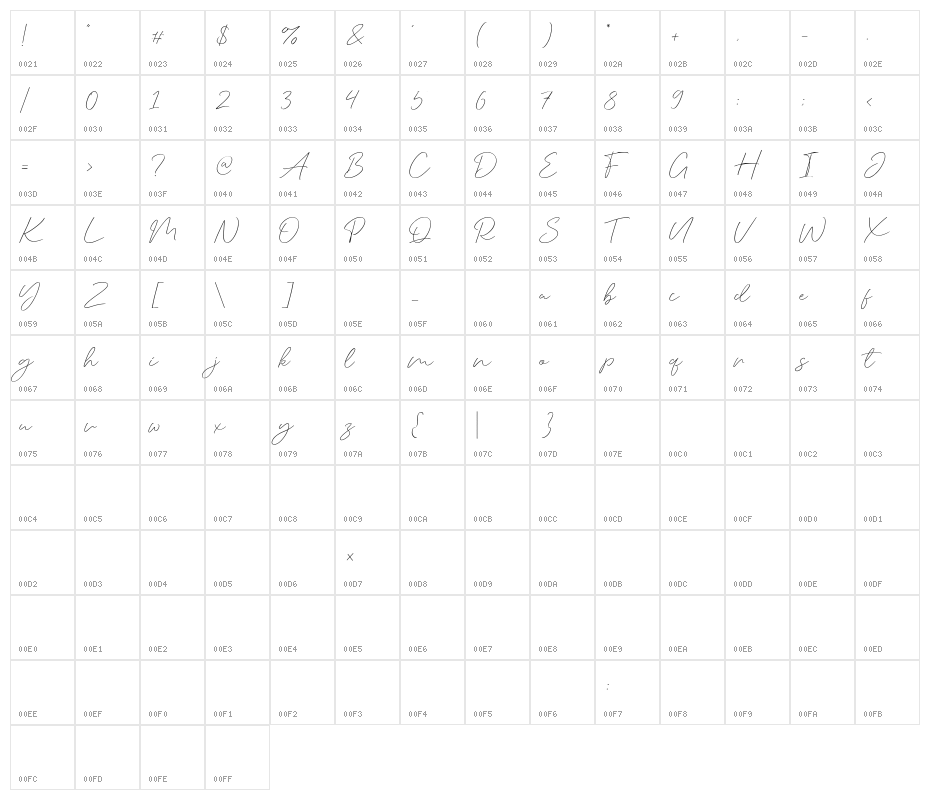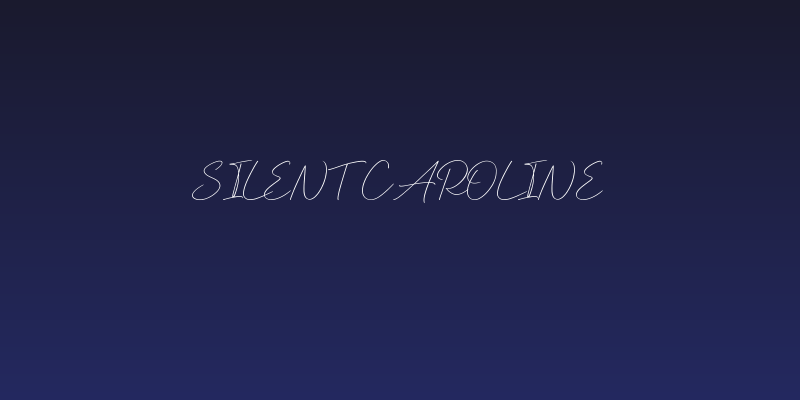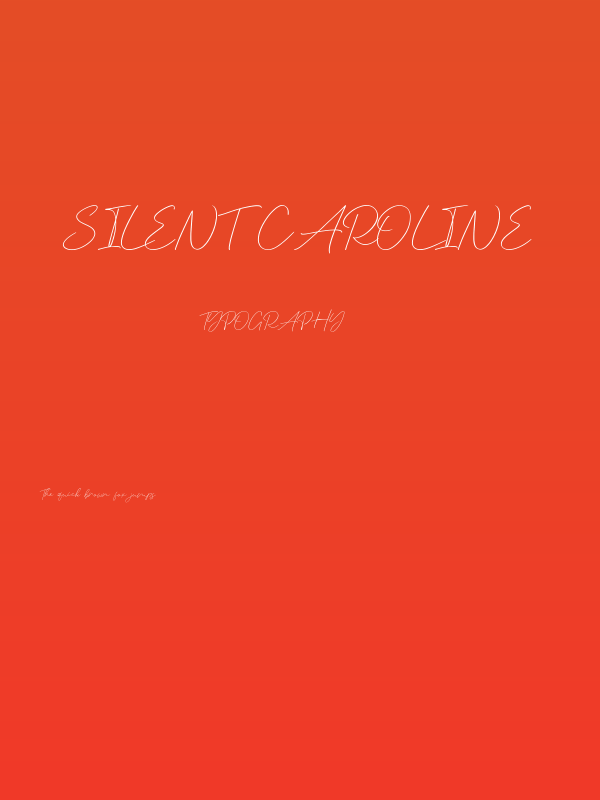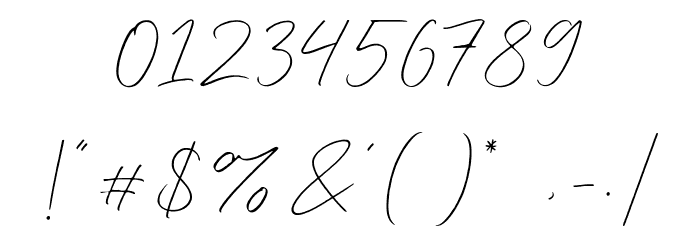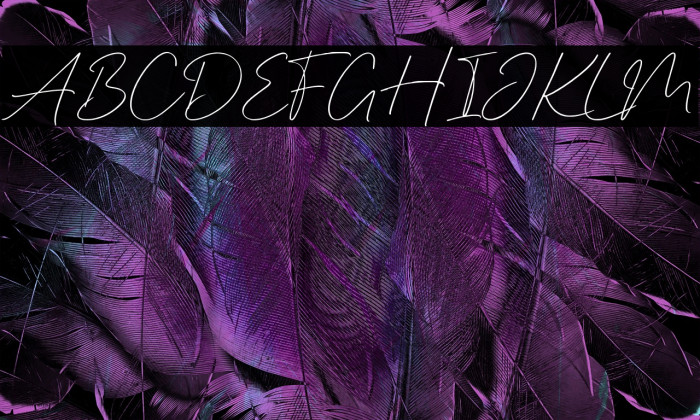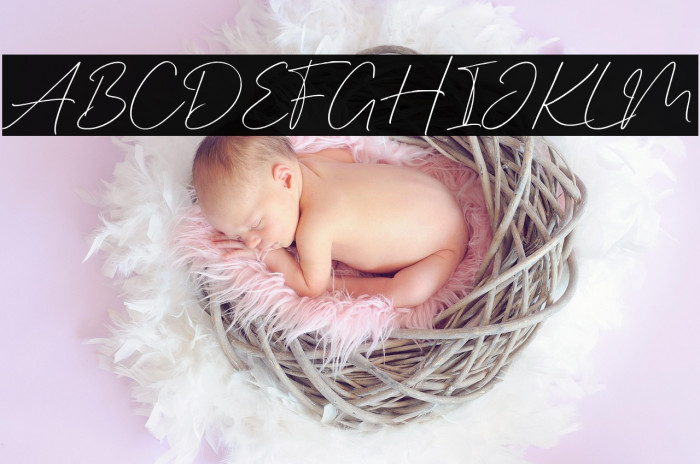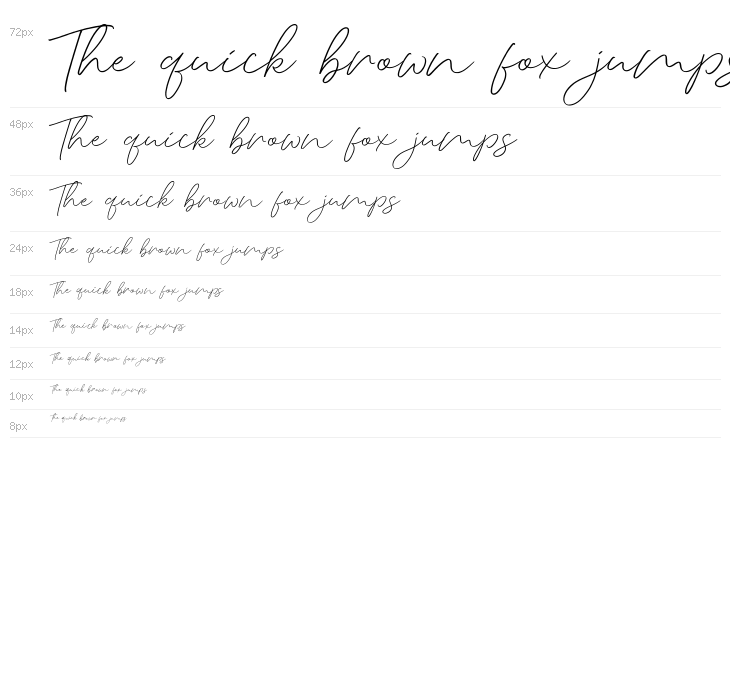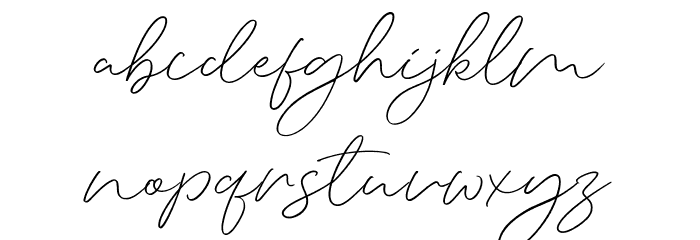
Silent Caroline Font
Silent Caroline Description
This font features a delicate and flowing script style, characterized by its elegant and fluid strokes. The letters are interconnected, creating a seamless and harmonious appearance. The uppercase letters maintain a consistent height, while the lowercase letters exhibit a slight slant, enhancing the cursive effect. The numerals and special characters are crafted with the same attention to detail, ensuring uniformity across all glyphs. The overall design exudes sophistication and grace, making it suitable for projects that require a touch of elegance.